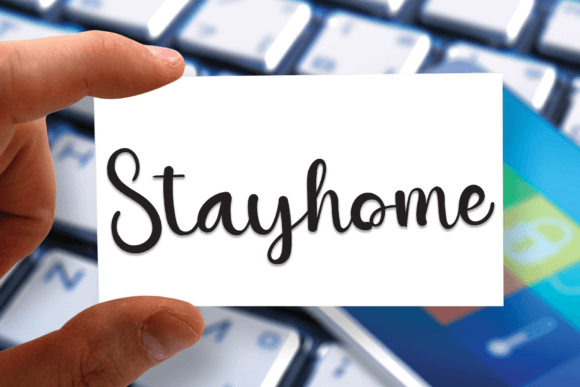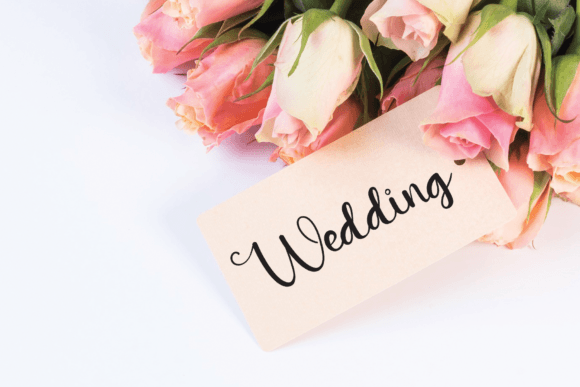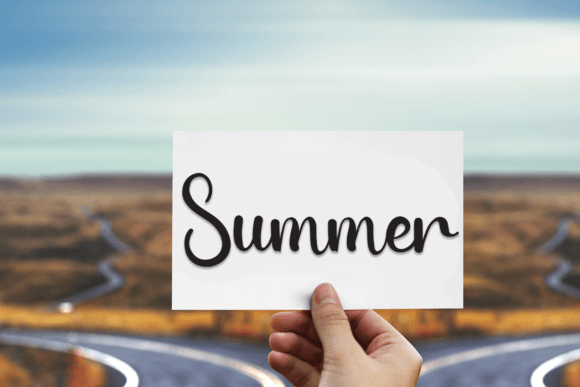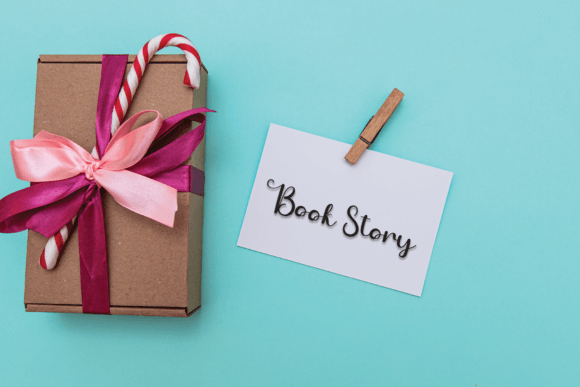
Introduction to Rich Font Font
Fonts play a crucial role in design, and the Rich Font font is a typeface that brings both character and versatility to any project. Whether you’re working on a branding project, a website, or a print design, the Rich Font font offers a unique style that can elevate your work.
Rich is a sweet and smooth handwritten font.
Cute and playful, this font is ideal for writing wedding invitations, cards, or any other design that might need a romantic and personal touch .
Key Features of Rich Font Font
Why Choose Rich Font Font?
The Rich Font font is more than just a typeface – it’s a design tool that helps you communicate your message with style and clarity. Its unique character set and versatile design make it suitable for a wide range of applications, from elegant invitations to bold headlines.
With its carefully crafted letterforms and balanced proportions, the Rich Font font ensures readability and visual appeal across all mediums.
What makes Rich Font font special?
The Rich Font font stands out with its unique design, exceptional readability, and versatility across various design applications.